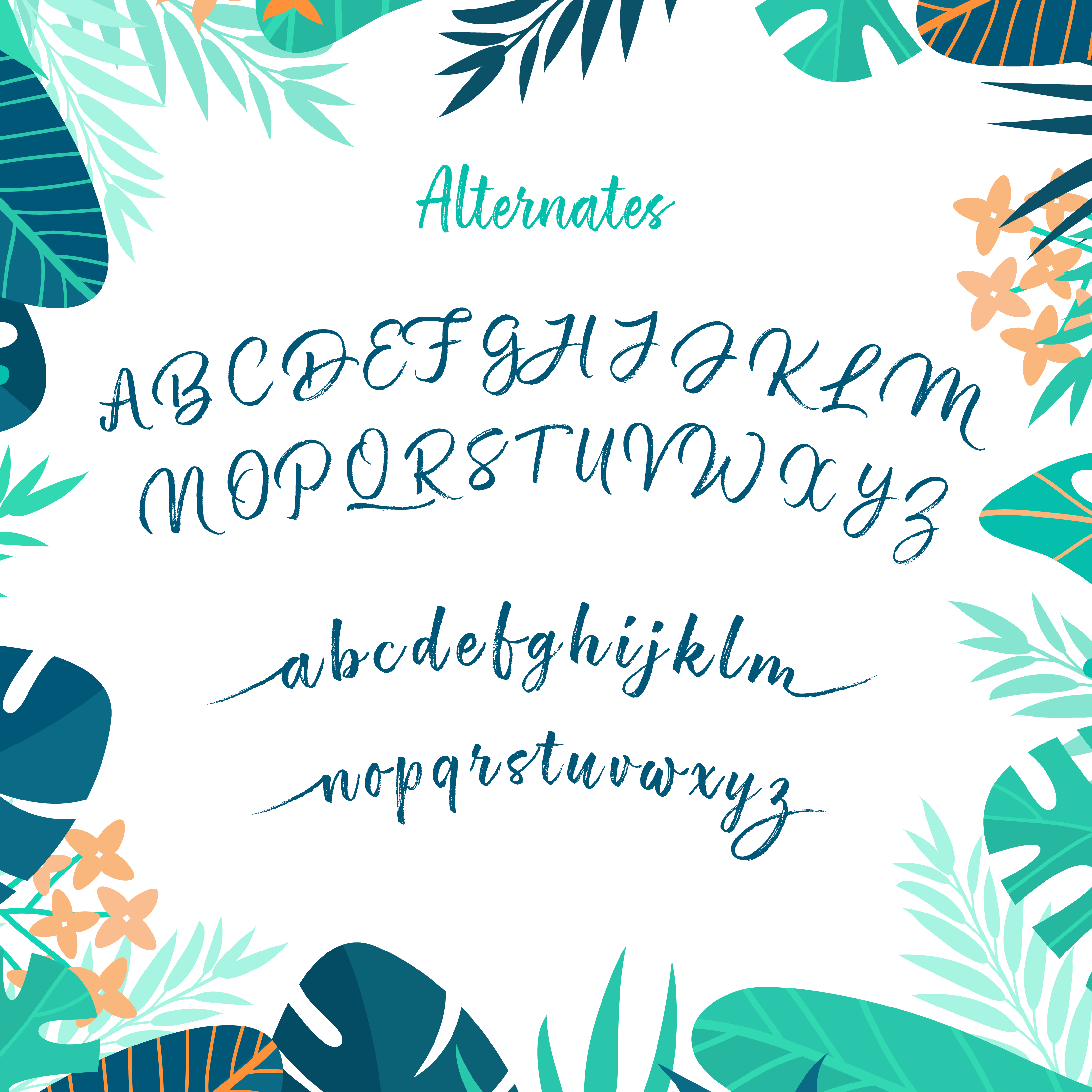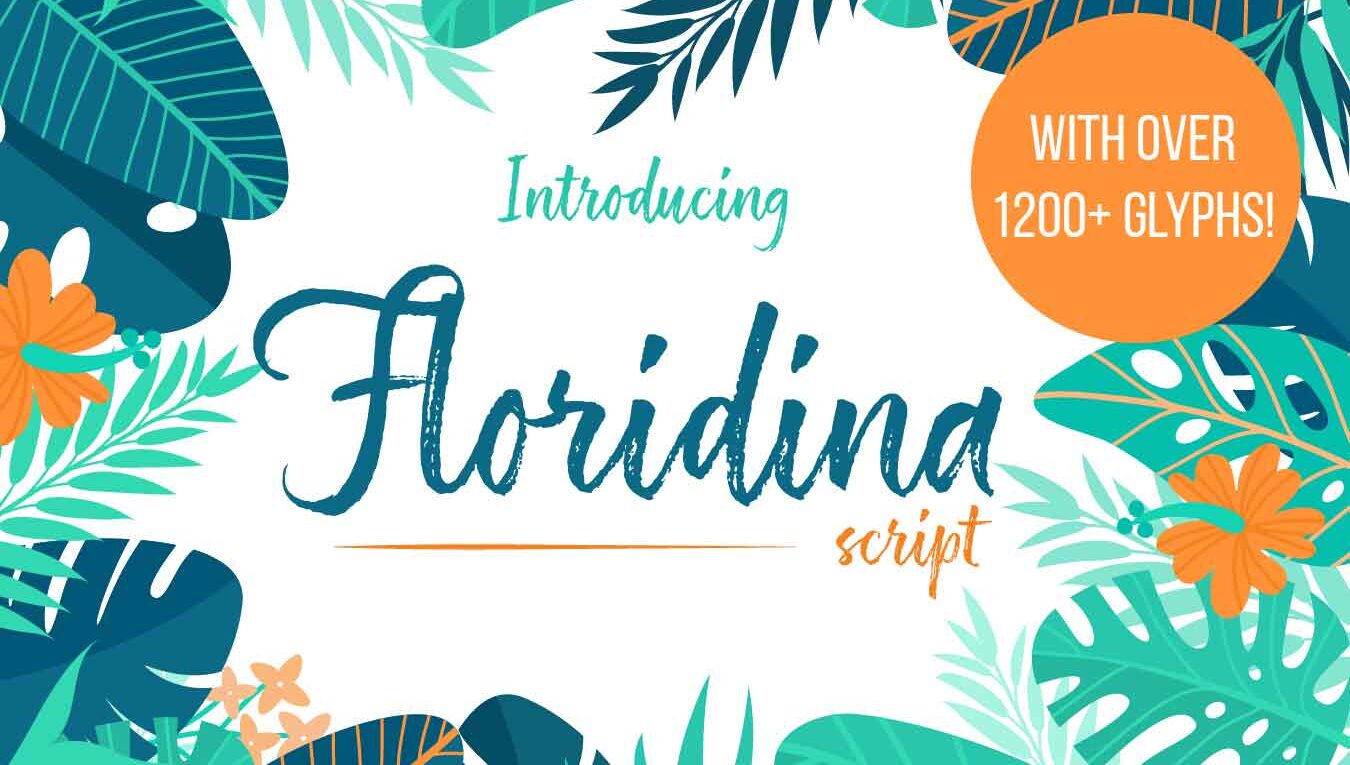
Introducing Floridina Font: The Perfect Summer Companion for Designers
Are you tired of using the same old fonts in your designs? Look no further! Floridina Font is here to bring a breath of fresh air to your creative projects. This modern and fresh brush font is perfect for summer, with a breezy and summery feel that will give all your designs a completely contemporary vibe.
What Makes Floridina Font Special?
Floridina Font is not just another font, it’s a game-changer. With over 1200+ glyphs, this font is robust and versatile, making it perfect for a wide range of design projects. Whether you’re a designer, crafty DIY enthusiast, or simply someone who loves to create, Floridina Font is the perfect companion for your summer designs.
Key Features of Floridina Font
- Modern and Fresh Design: Floridina Font boasts a modern and fresh design that’s perfect for summer. Its breezy and summery feel will give your designs a contemporary vibe that’s sure to impress.
- Robust and Versatile: With over 1200+ glyphs, Floridina Font is robust and versatile, making it perfect for a wide range of design projects.
- Perfect for Designers and Crafters: Whether you’re a professional designer or a crafty DIY enthusiast, Floridina Font is perfect for your summer designs.
How to Use Floridina Font in Your Designs
Using Floridina Font in your designs is easy. Here are a few tips to get you started:
- Pair it with Other Fonts: Floridina Font pairs well with other fonts, so don’t be afraid to experiment with different combinations.
- Use it for Headings and Titles: Floridina Font is perfect for headings and titles, where its breezy and summery feel can really shine.
- Experiment with Colors: Floridina Font looks great in a variety of colors, so don’t be afraid to experiment with different color schemes.
Benefits of Using Floridina Font
There are many benefits to using Floridina Font in your designs. Here are a few:
- Stand Out from the Crowd: With its unique and modern design, Floridina Font is sure to help your designs stand out from the crowd.
- Save Time: With over 1200+ glyphs, Floridina Font can save you time and effort in your design projects.
- Perfect for Summer Designs: Floridina Font is perfect for summer designs, with its breezy and summery feel that’s sure to evoke the feeling of sunshine and freedom.